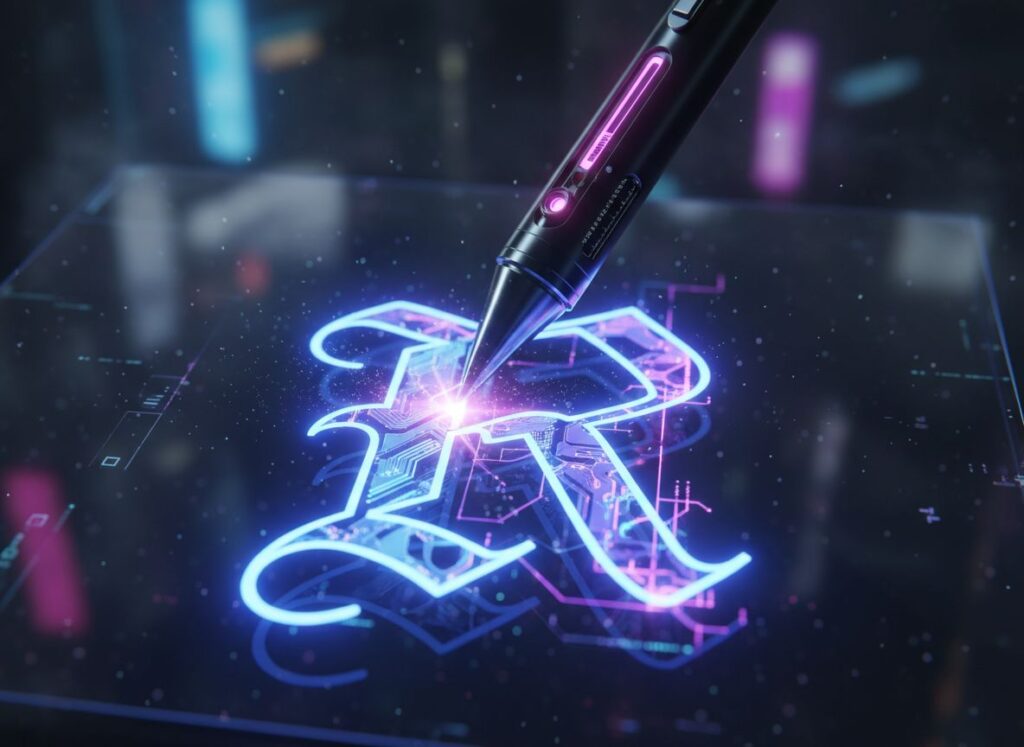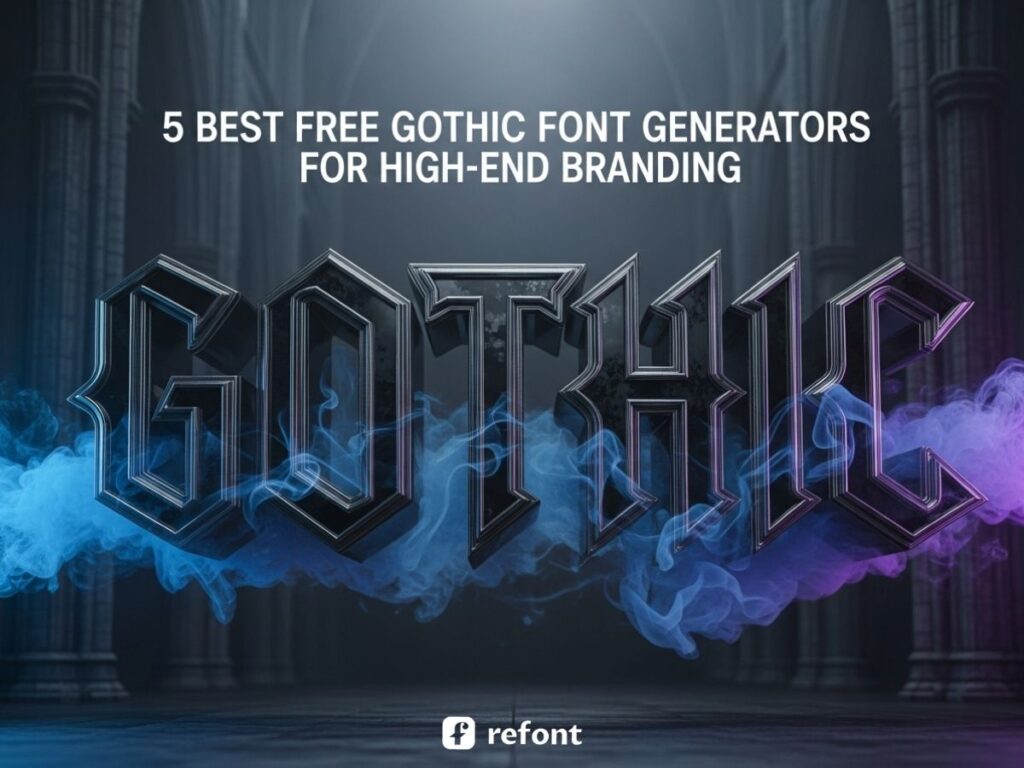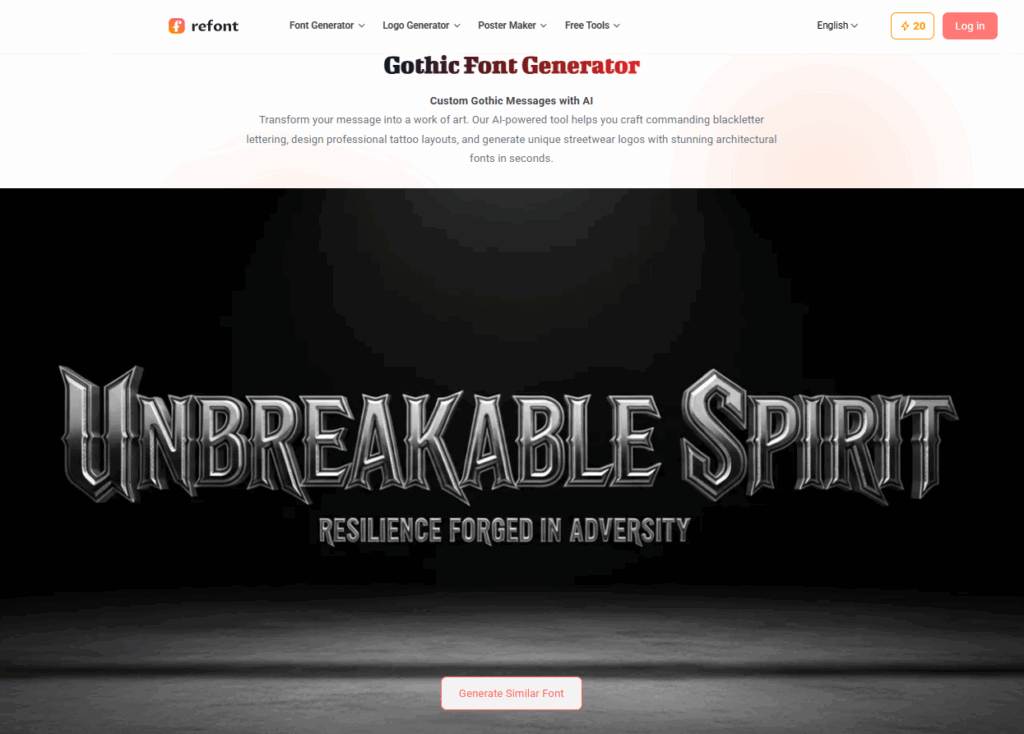
Elevate Your Identity: Why This AI Free Gothic Font Generator is the Future of Dark Aesthetics
Gothic typography, often called Blackletter, isn't just a way of writing; it’s a vibe. It’s the visual equivalent of a heavy metal riff or a cathedral’s spire reaching into a stormy sky. For decades, designers looking for a free gothic font had to settle for dusty, static files found in the dark corners of the internet. These traditional gothic font styles often felt rigid—like a suit that doesn’t quite fit. You download it, type your brand name, and realize the "S" looks weird next to the "T," but there’s nothing you can do about it.
The pain point is real: static downloads often feel soul-less. They lack the "ink-bleed" and the organic tension of real calligraphy. However, we are entering a new era. The rise of AI in personalized digital calligraphy means you no longer have to settle. With unique gothic lettering tools, you can now generate text that feels alive. Whether you are aiming for a streetwear drop or a dark-fantasy book cover, the future of the free gothic font is generative, adaptive, and unapologetically bold.
Why Refont is the Ultimate Destination for Your Next Free Gothic Font
If you’ve spent hours scrolling through font libraries, you know the frustration of "almost perfect." Refont.ai changes the game by treating typography as an art form rather than a file format. It stands out among unique gothic lettering tools because it doesn't just store fonts—it breathes life into them.
AI-Driven "Bespoke" Feel vs. Character Mapping
Standard fonts use "character mapping," where every 'A' looks identical. This is why many free gothic font designs look "digital" and fake. Refont uses real-time stroke generation. This means the AI understands how a pen would move. When you use these unique gothic lettering tools, the curves and sharp edges feel bespoke, as if a medieval monk just finished scribing them on parchment specifically for your project.
Key Styles: From Authentic Ink to Cyber-Goth
Diversity in gothic font styles is crucial. Refont offers a spectrum that ranges from "Authentic Ink Manuscript"—perfect for high-end heritage brands—to "Cyber-Goth," which blends the ancient with the futuristic. If you need a free gothic font that looks like it belongs on a neon-lit billboard in 2077 or a wax-sealed letter from 1600, this is the tool.
Professional Results for Non-Designers
You don't need a master's degree in typography to create something stunning. The efficiency factor is high here. You can produce high-quality posters or logos in minutes. Most unique gothic lettering tools require a steep learning curve, but Refont simplifies the complexity of gothic font styles into a user-friendly interface.
Built-in Flourishes and Weight Control
One of the coolest features is the control over flourishes. Traditional free gothic font downloads are stuck with whatever tails the designer gave them. With these unique gothic lettering tools, you can adjust the "weight" and the "drama" of the strokes, ensuring the balance between visual tension and legibility.
Finding the Best Free Gothic Font Tool for Your Needs
Selecting a free gothic font isn’t just about downloading a random .ttf file and hoping for the best; it’s about finding a partner that matches your specific creative workflow. Think of it like choosing a tattoo machine or a spray paint nozzle—the tool dictates the soul of the final output. Whether you are a tattoo artist needing a hyper-precise stencil that won't blur on skin, or a streetwear brand owner building a visual identity meant to dominate Instagram feeds, the "how" matters as much as the "what." The following breakdown compares the top players in the typography space, helping you navigate the jungle of unique gothic lettering tools.
Product 1: Refont.ai — "The Creative Maverick" (Best Overall for Customization)
The Breakdown: If traditional font websites are dusty libraries, Refont.ai is a high-tech laboratory. Unlike traditional databases that simply store static files, Refont uses advanced generative AI to craft every stroke in real-time. It doesn't just "fetch" a free gothic font from a server; it literally "creates" one based on your specific input. This radical approach makes it a undisputed leader among unique gothic lettering tools.